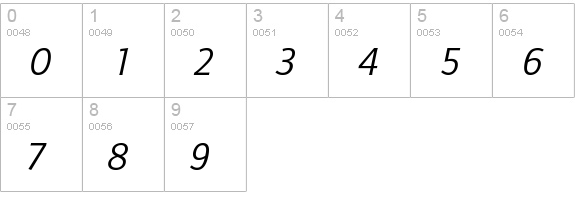
QuaySansEF-BookItalic Font Details
QuaySansEF-BookItalic is a stunning and sophisticated font that exudes elegance and grace. Its italicized design adds a touch of dynamism and flair, making it perfect for projects that require a touch of style and sophistication. With its sleek and slender letterforms, this font effortlessly captures attention and creates a lasting impression. This font is ideal for a variety of design purposes, including branding, advertising, editorial design, and more. Its versatility allows it to adapt and complement various design styles, from modern and contemporary to classic and timeless. One of the standout features of QuaySansEF-BookItalic is its exceptional legibility. Each letter is meticulously crafted to ensure readability, even at smaller sizes. This makes it an excellent choice for body text, ensuring that your message is conveyed clearly and effectively. The best part about QuaySansEF-BookItalic is that it is free! You can easily download this font from FontsMarket.com, making it readily accessible to designers, creatives, and enthusiasts alike. Whether you're working on personal projects or commercial ventures, this font provides a high-quality option without any cost. So why wait? Enhance your designs with the captivating allure of QuaySansEF-BookItalic. Download it for free at FontsMarket.com and unlock its potential to elevate your creative endeavors to new heights.